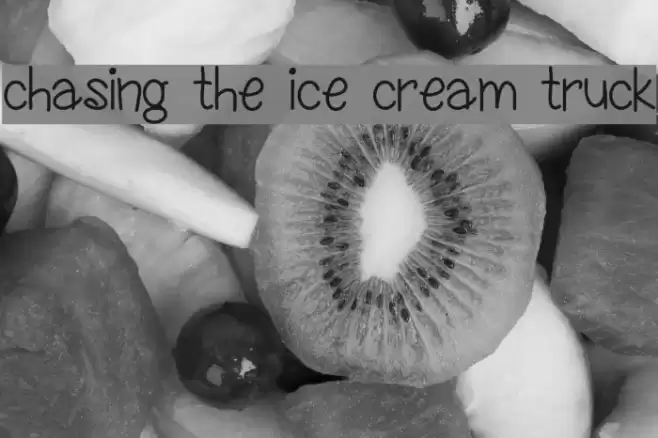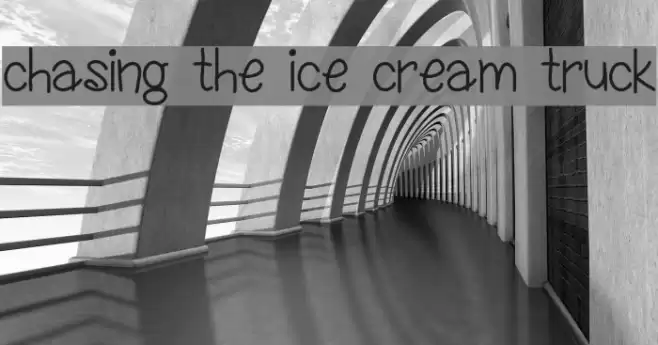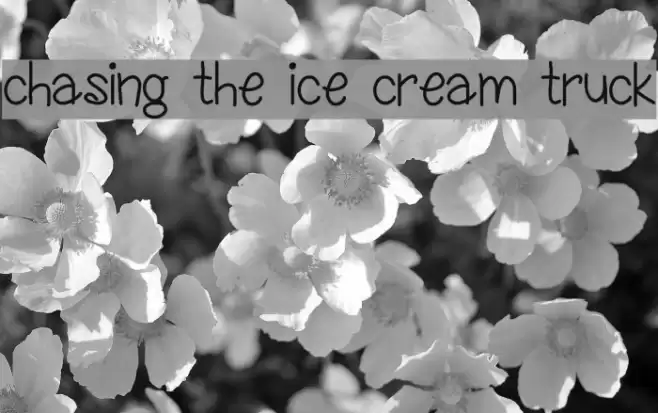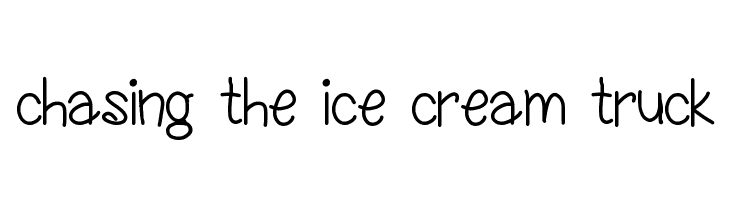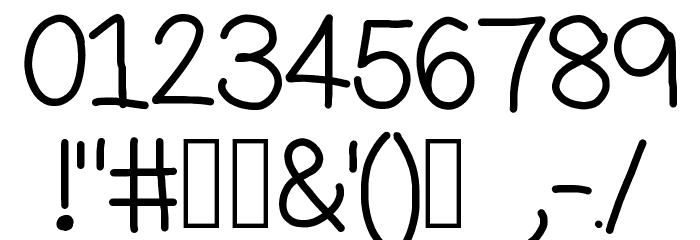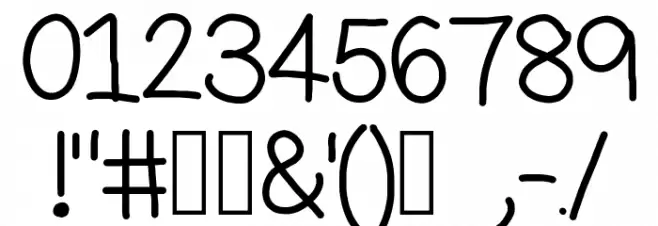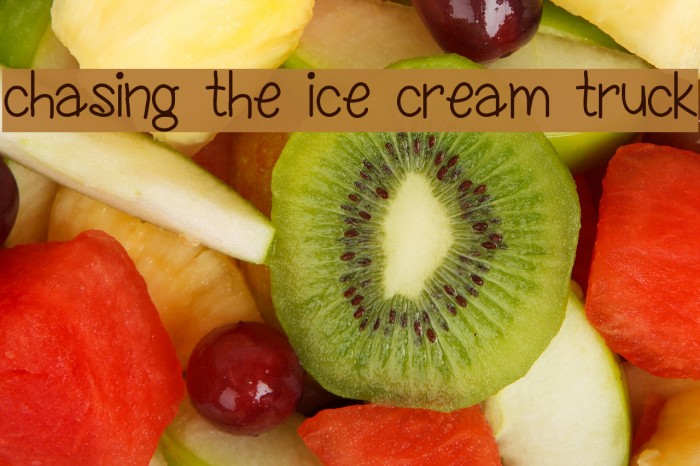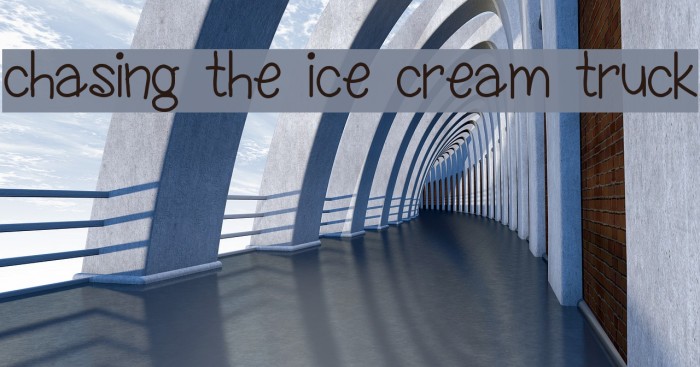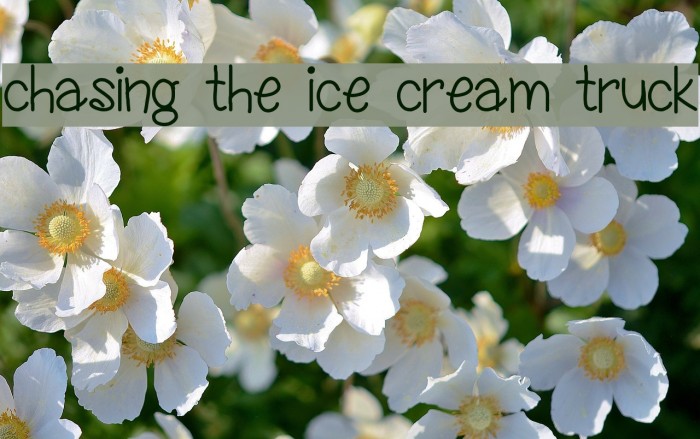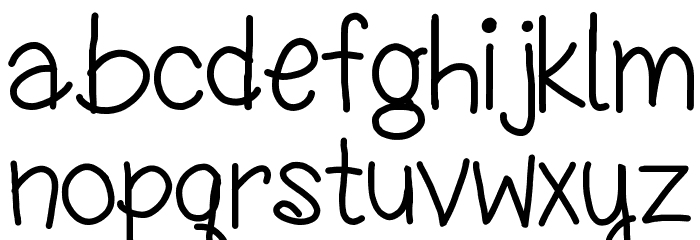
chasing the ice cream truck Font
chasing the ice cream truck Description
This playful and whimsical font features a handwritten style that evokes a sense of fun and creativity. The characters are slightly irregular, giving it a casual and informal appearance. The strokes are consistent in thickness, providing a uniform look across all letters and numbers. The font includes both uppercase and lowercase letters, as well as numerals and a variety of special characters. Its overall appearance is friendly and approachable, making it suitable for projects that aim to convey a lighthearted and cheerful tone.
A playful, handwritten font with a casual and whimsical style from Handwritten fonts.
- Proposed Projects: Ideal for children's books, greeting cards, playful branding, and casual invitations.
- Overall Style: Casual
- Use Case: Headlines, Logos, Informal Text